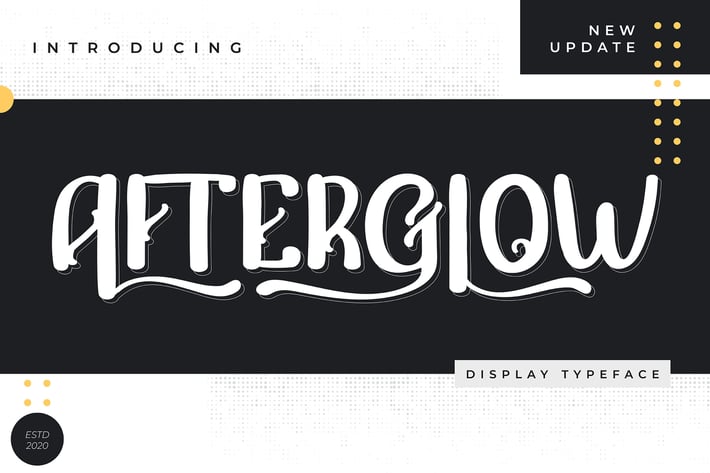
Afterglow | Display Typeface Font
Afterglow | Display Typeface Font with a calligraphy style, So beautiful on invitation like greeting cards, branding materials, business cards, quotes, posters, and more!